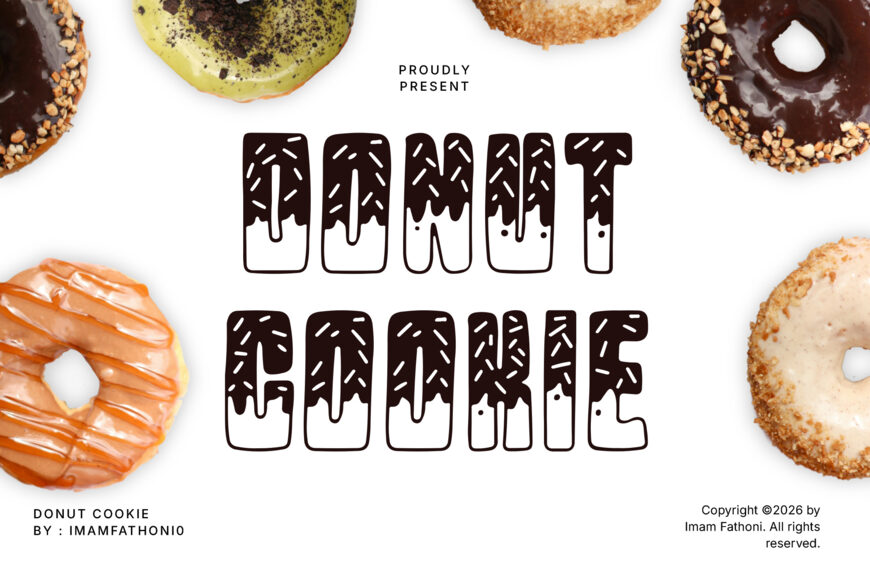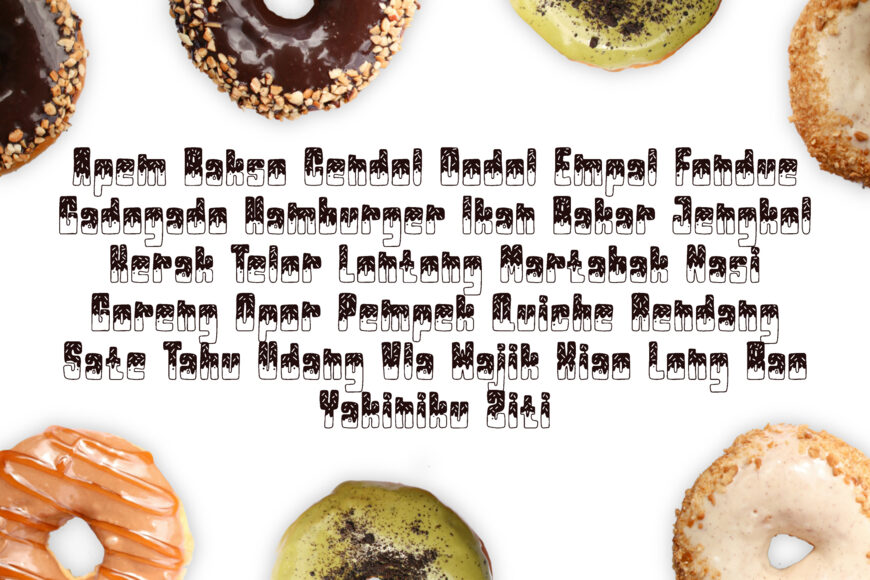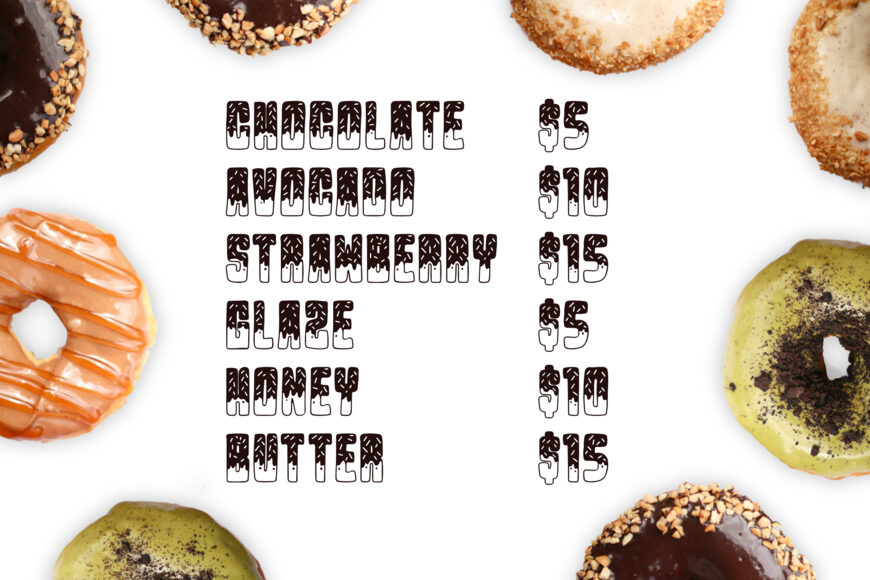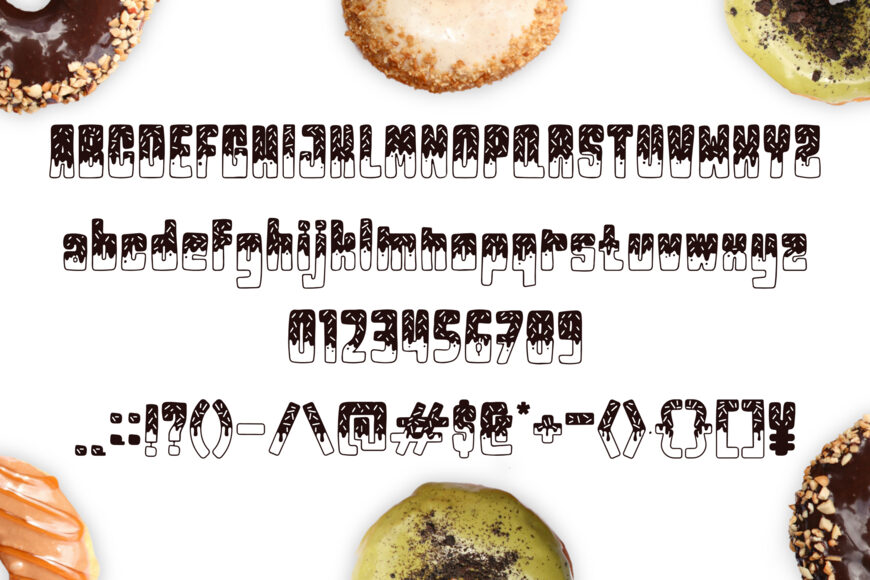
Donut Cookie is a playful display font inspired by melted chocolate and scattered sprinkles, with drippy, gooey letterforms that look good enough to eat. Its sweet, whimsical character brings instant appeal to dessert-focused branding and packaging.